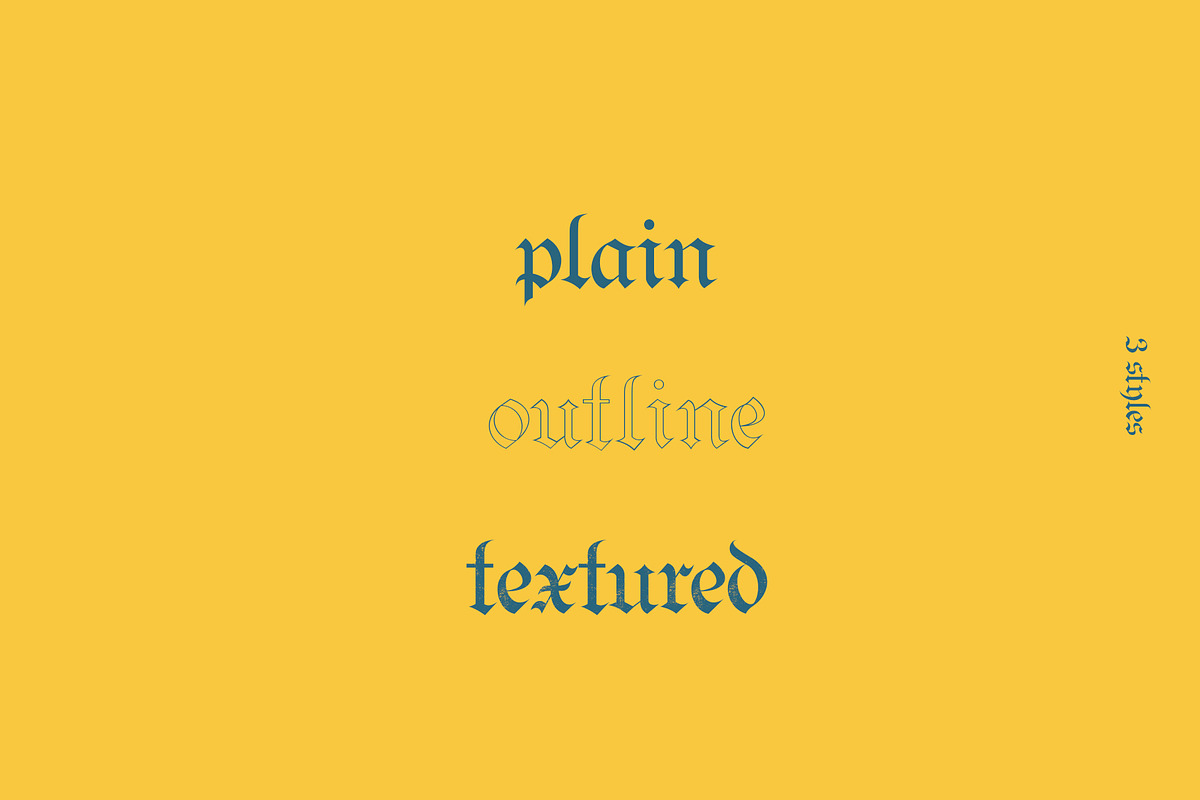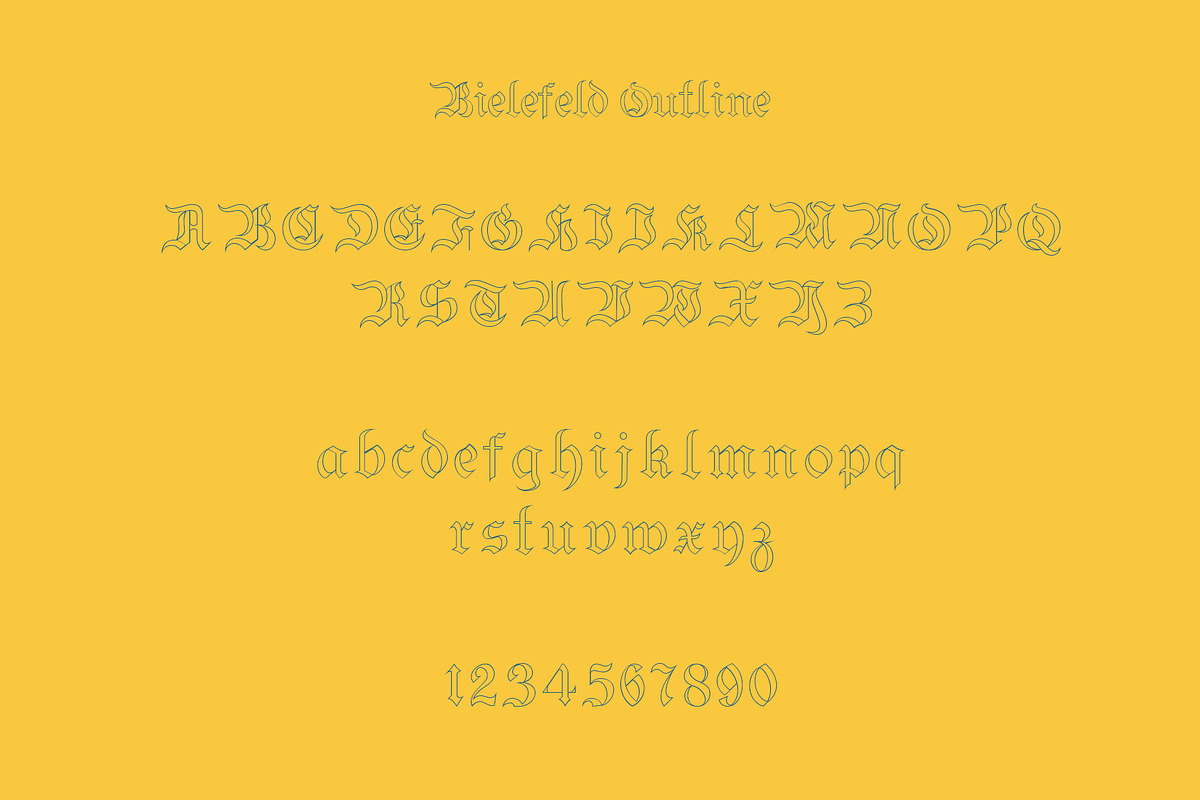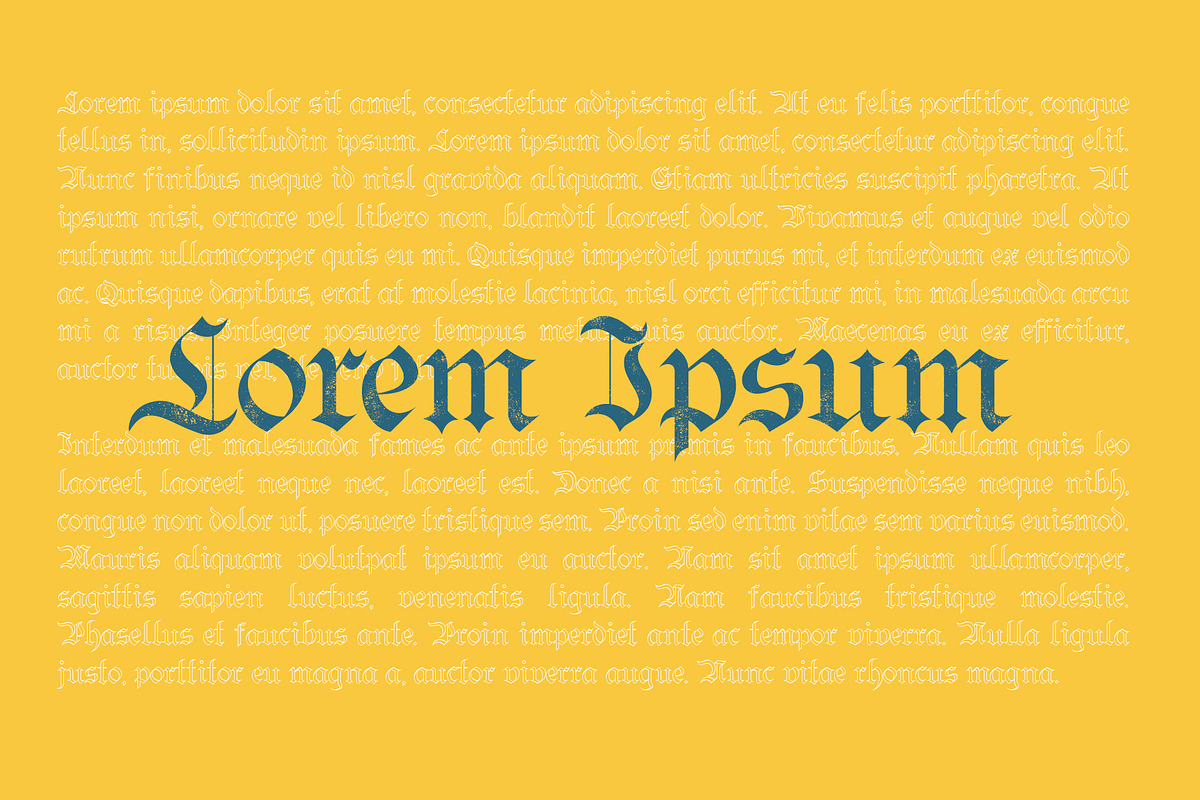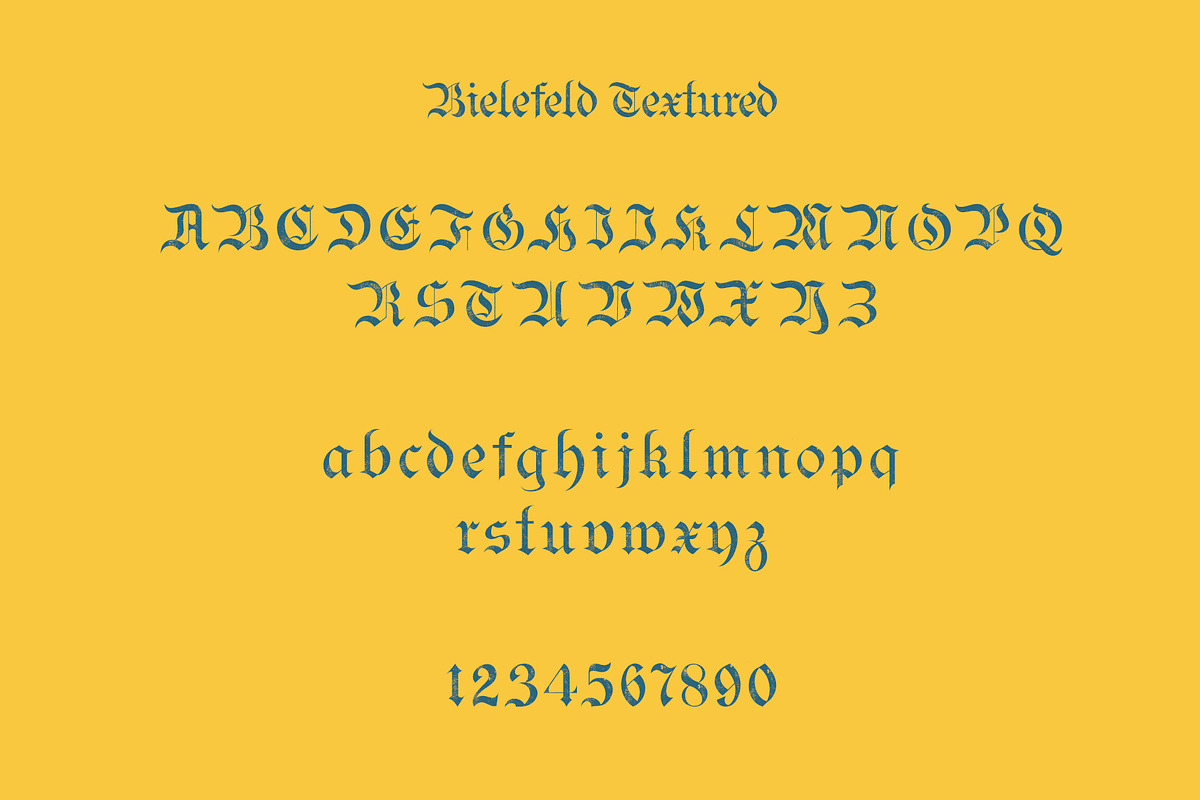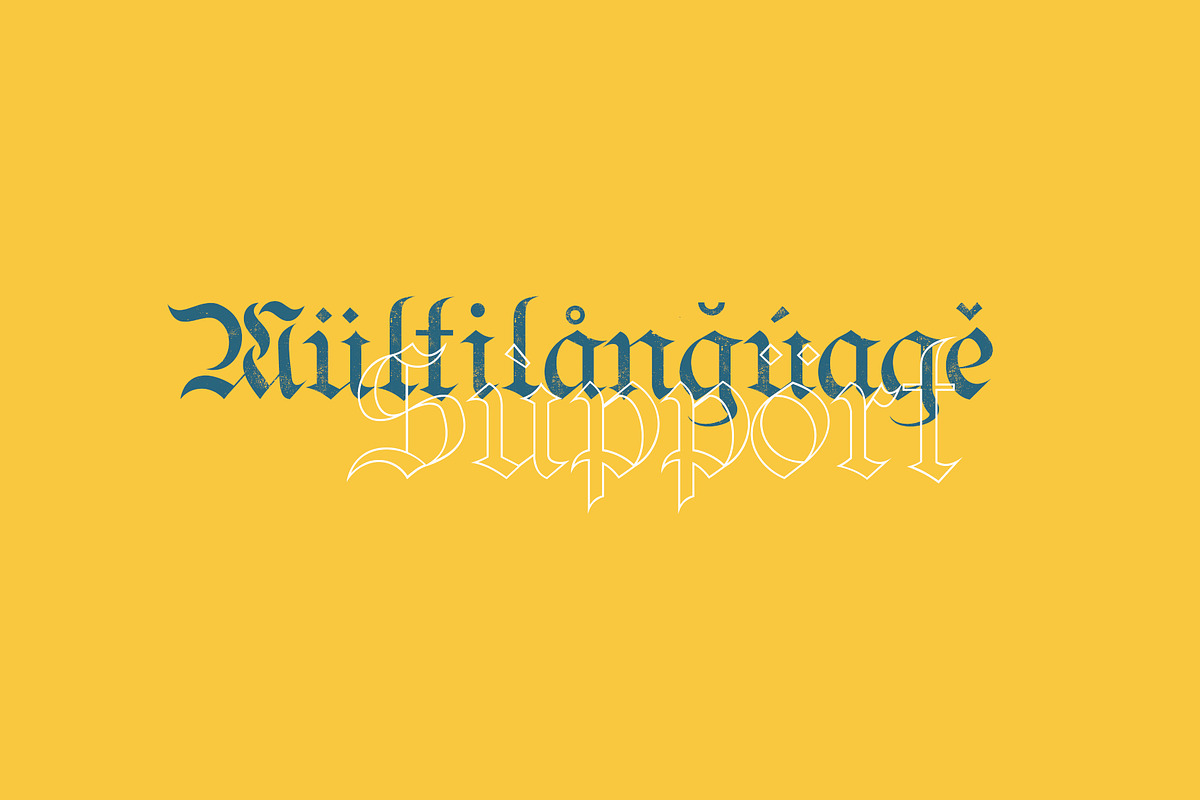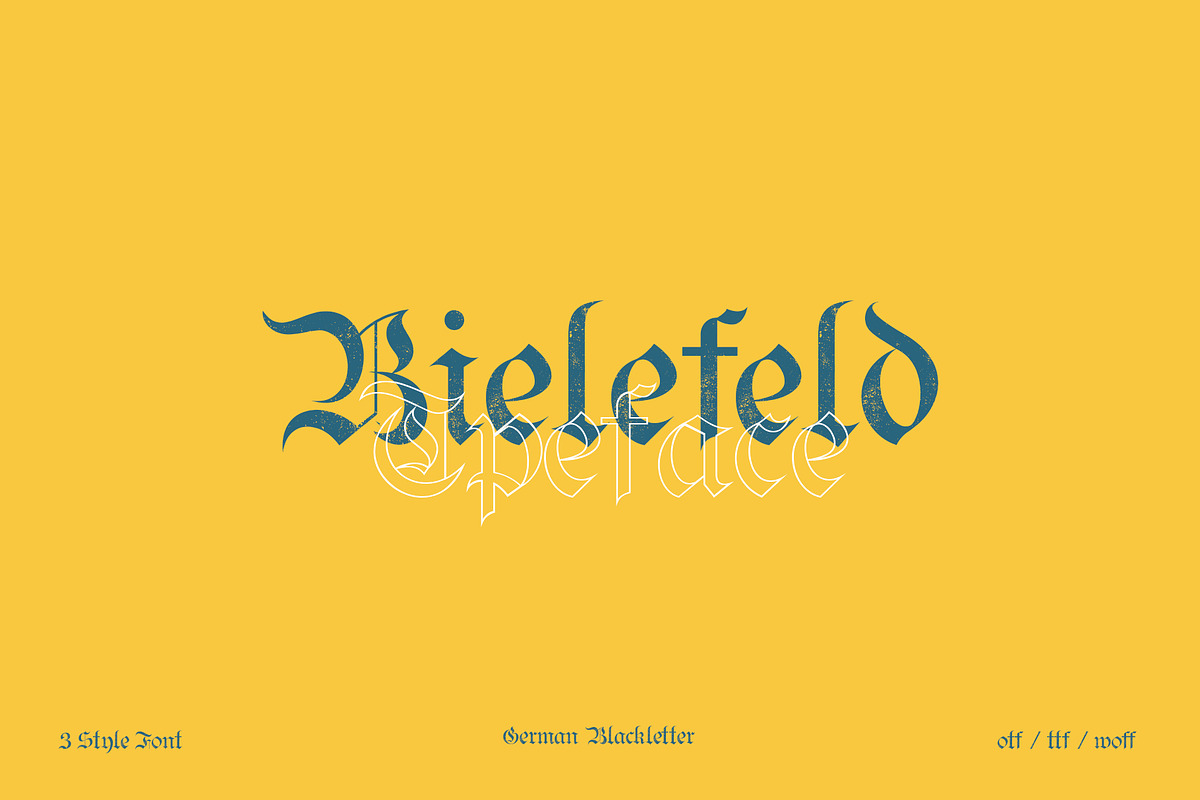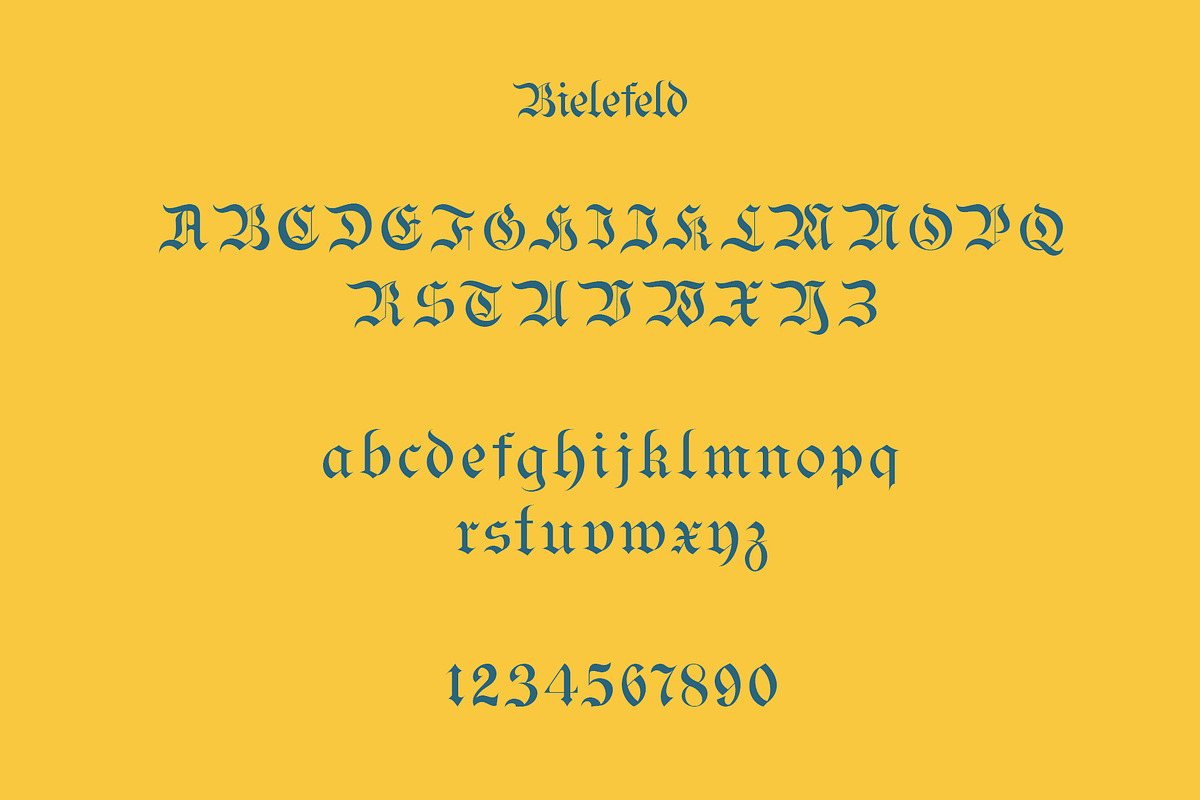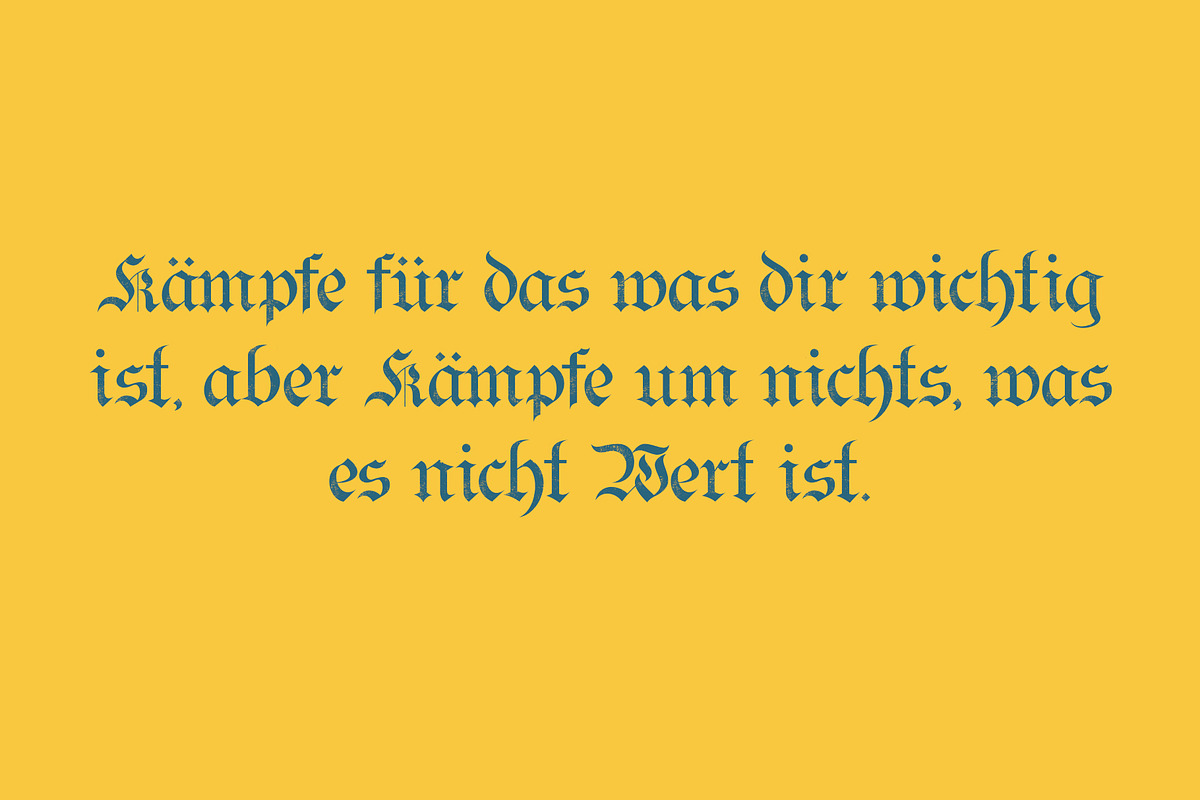
Bielefeld typeface font
Bielefeld typeface is a font made by me inspired by the sub text of a book. I made it because I think this font is unique.You can use this font to create logos, posters, magazines, books, and other design needs, or also for collections.
multi language support
3 Font : plain , outline , & textured
Bielefeld typeface font by Emyself Design fits naturally into Branding, posters, packaging, typography.